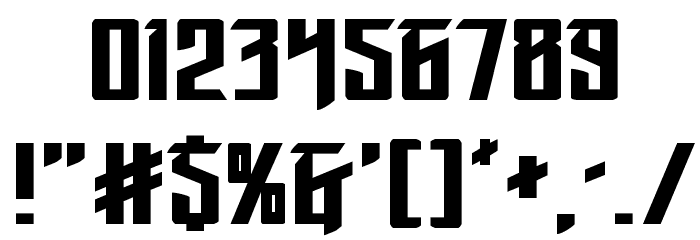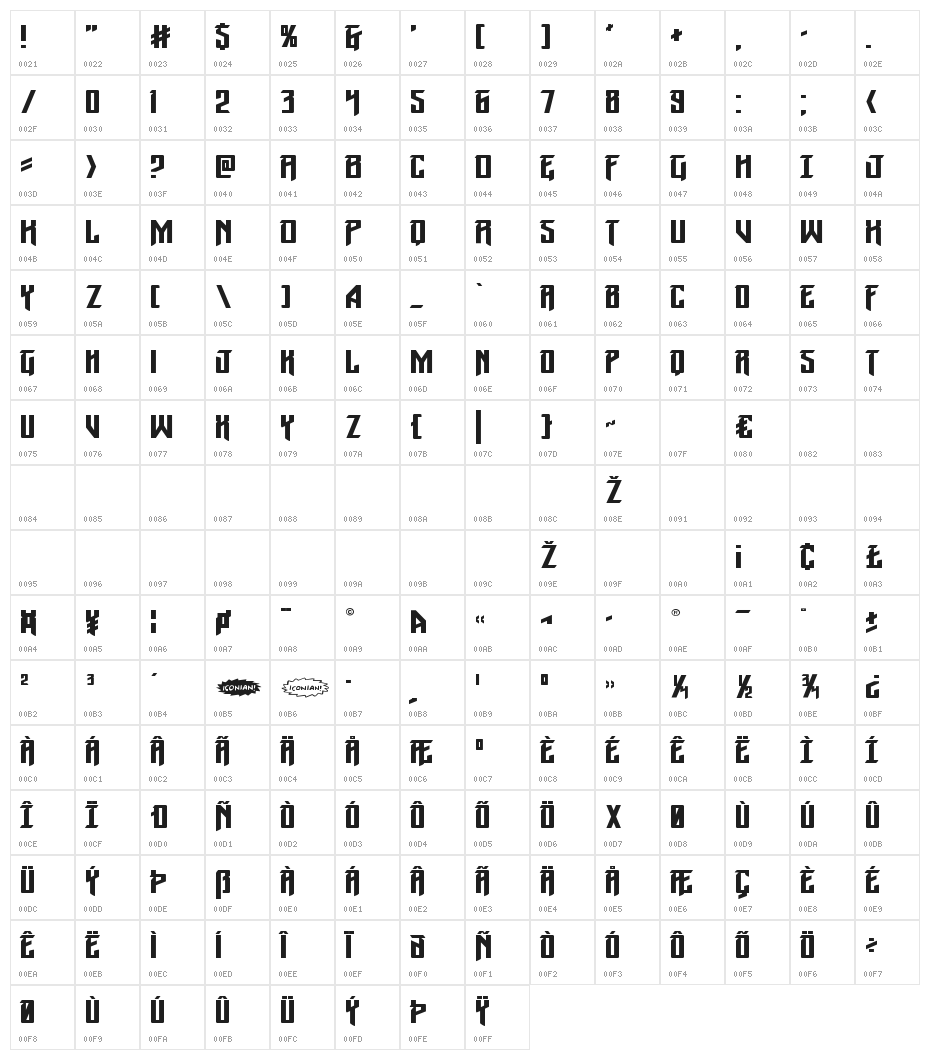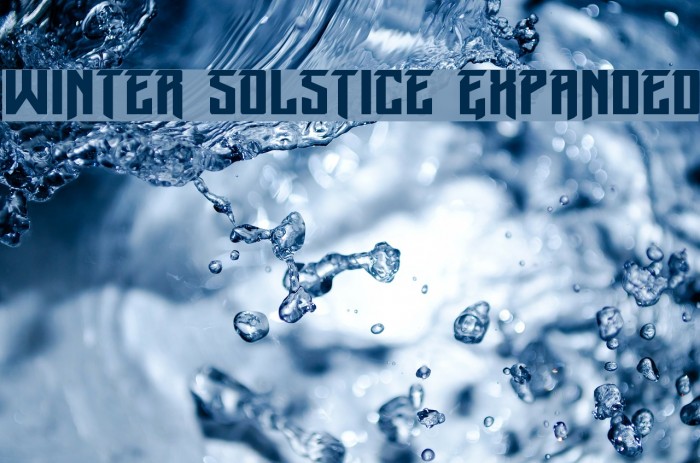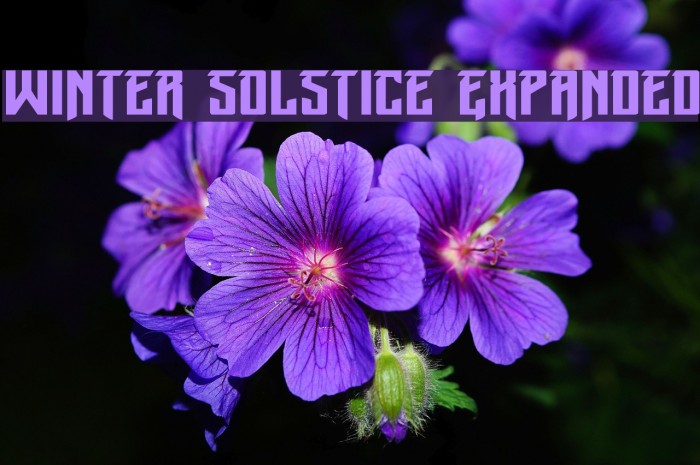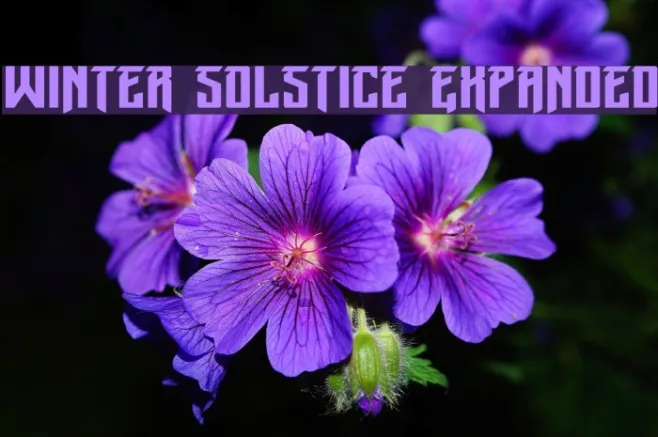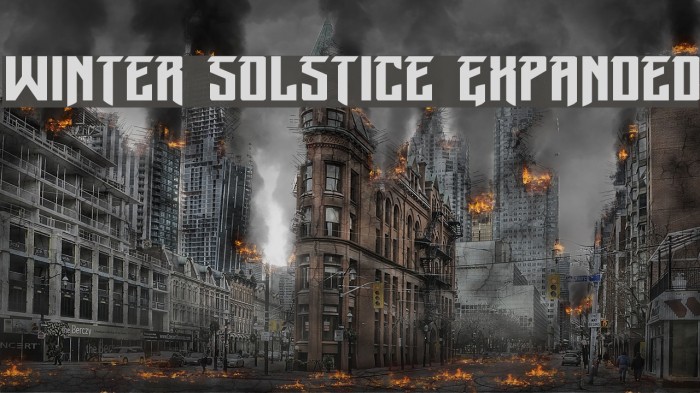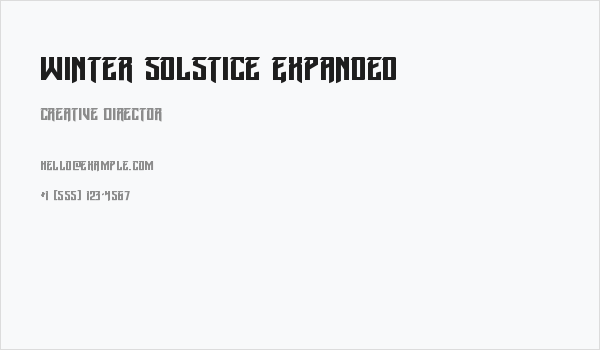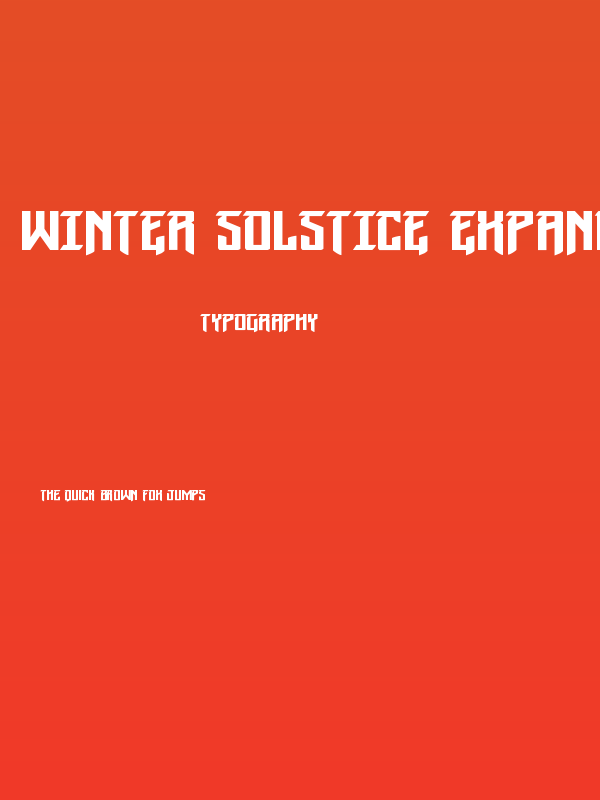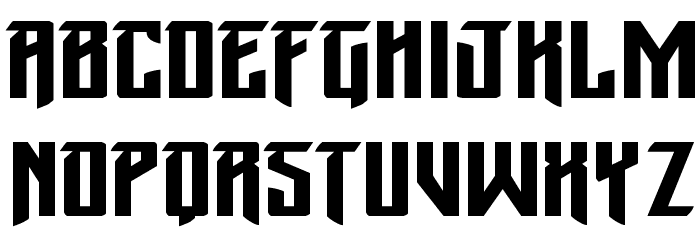
Winter Solstice Expanded Font
Winter Solstice Expanded Description
This font features a bold and striking design with sharp, angular edges and a geometric structure. The uppercase letters are particularly prominent, with a strong presence that commands attention. The characters are evenly spaced, providing a balanced and cohesive look. The numbers and special characters maintain the same bold style, ensuring consistency across all text elements. This font is ideal for making a statement, with its modern and edgy appearance that stands out in any design.
| Proposed Projects | Ideal for posters, logos, headlines, and branding materials that require a strong visual impact. |